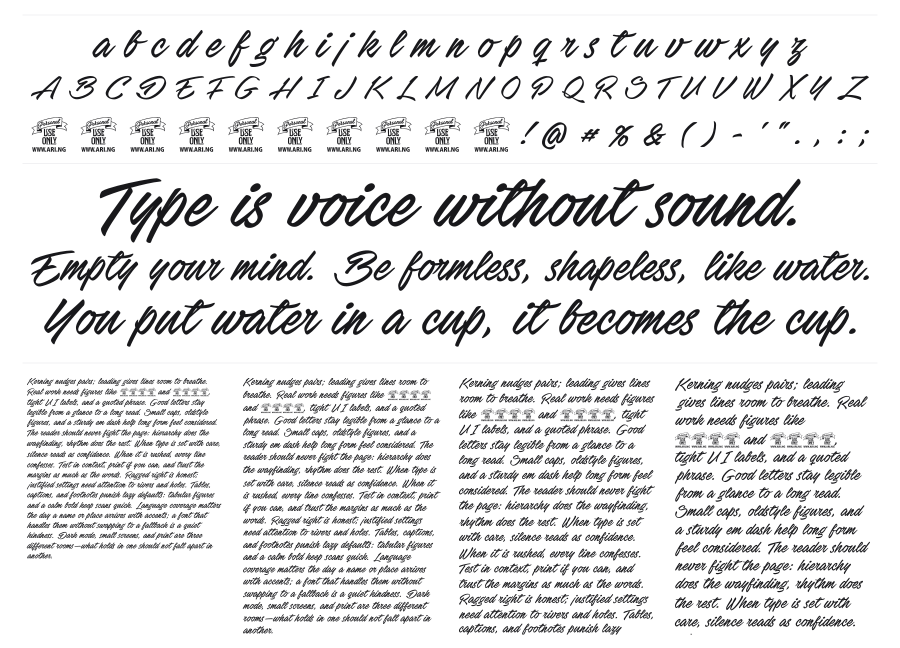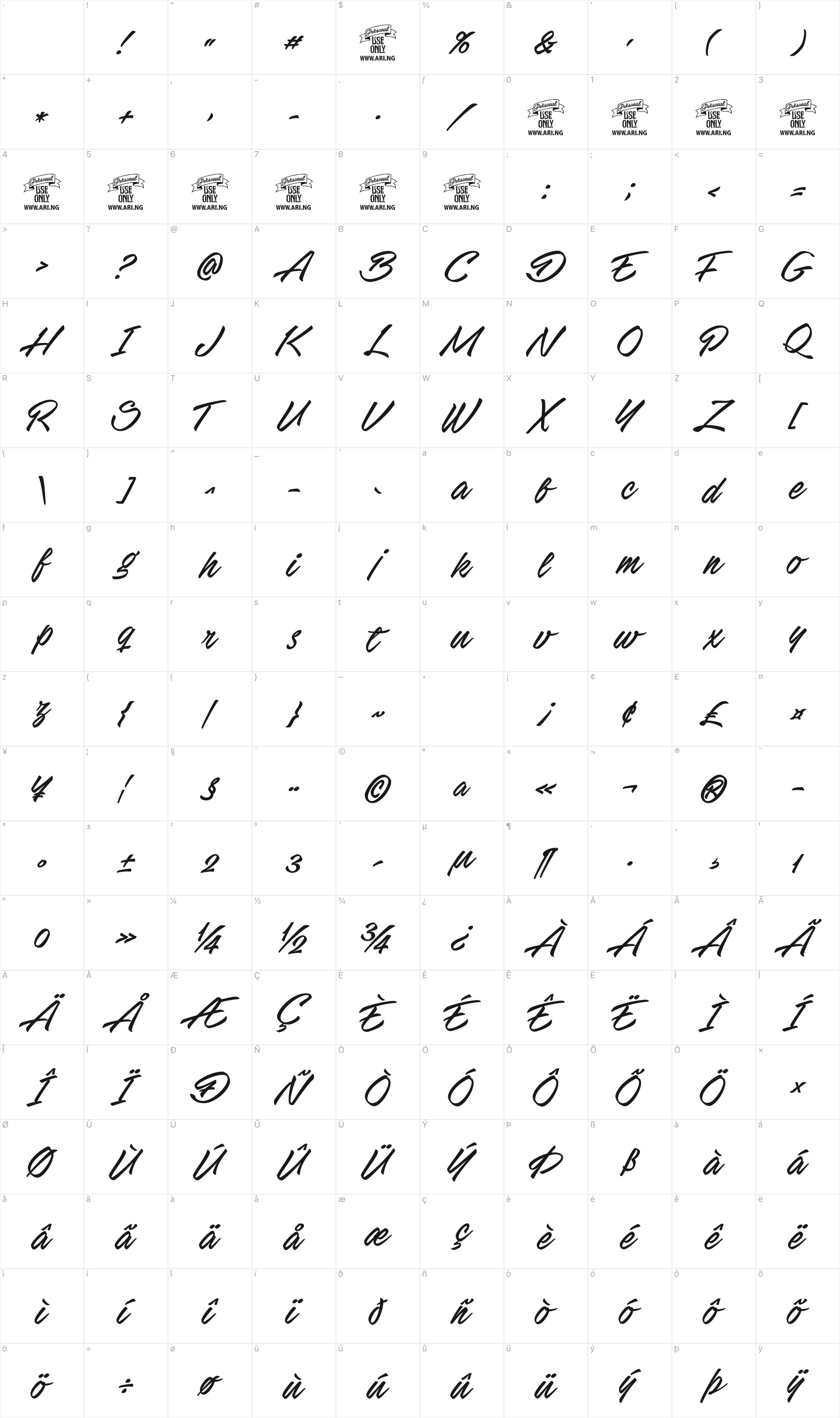
Stackyard
Stackyard is a bold brush script from Måns Grebäck with a strong forward lean and loose, energetic strokes that feel like they were laid down fast with a loaded brush. The letterforms are thick and casual, with enough movement and texture to carry real personality in headlines, packaging, and event branding. It's the kind of face that brings immediate warmth and spontaneity without sacrificing legibility at display sizes.